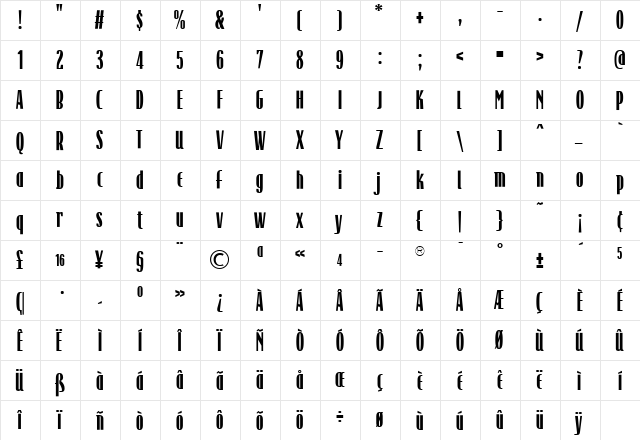
TFRaincheck Bold
Design Context for TFRaincheck Typeface
TFRaincheck is a composed and adaptable typeface that performs quietly and consistently across a wide range of design contexts. The heavy weight commands attention and anchors typographic hierarchies.